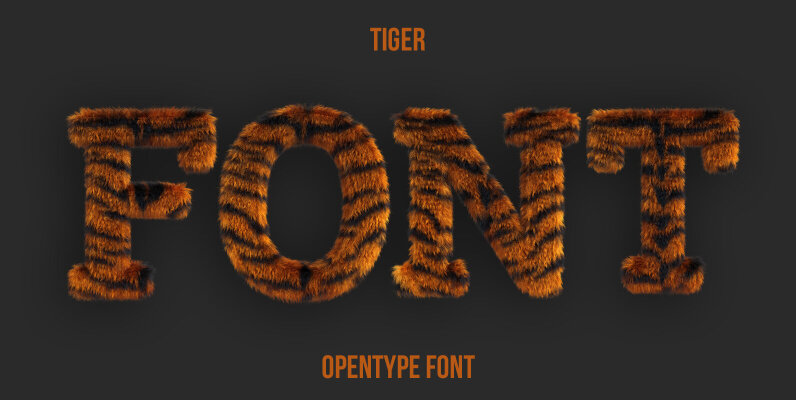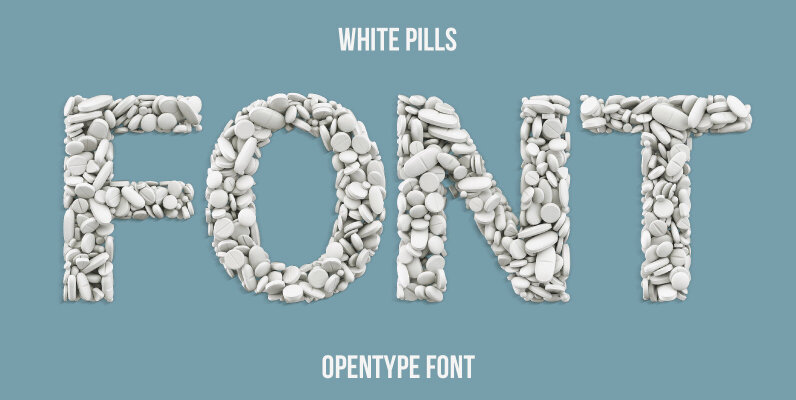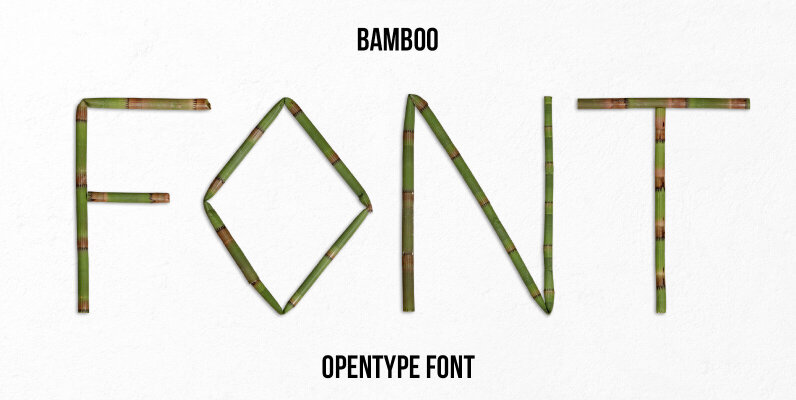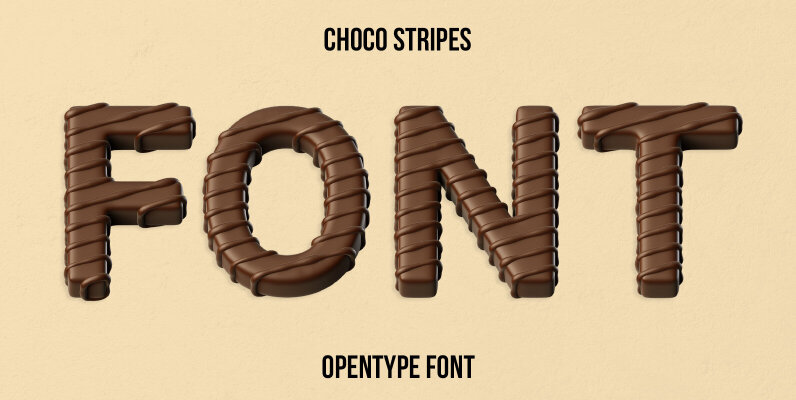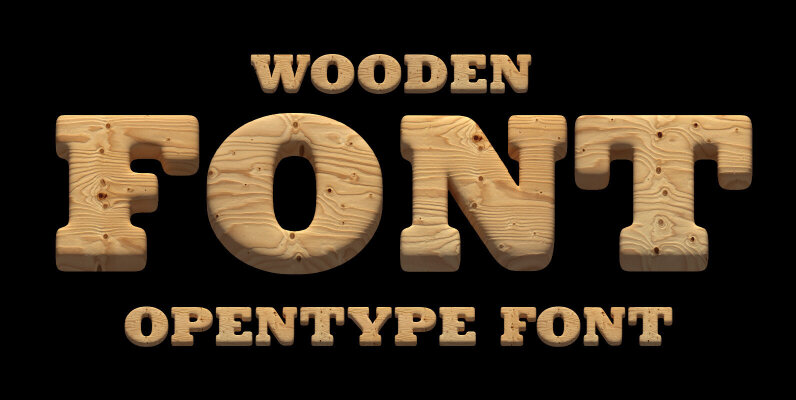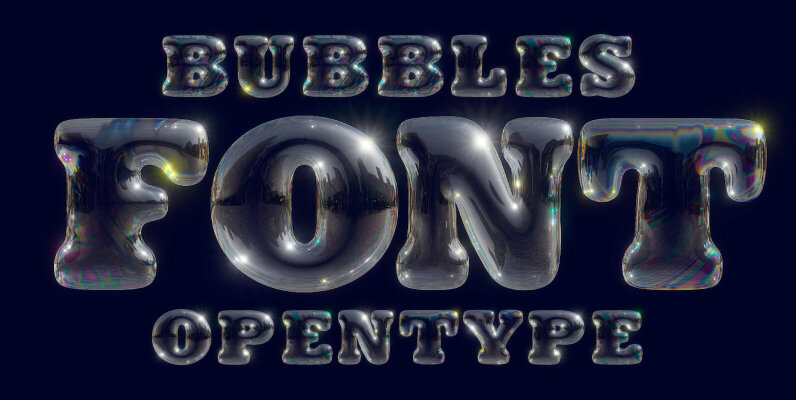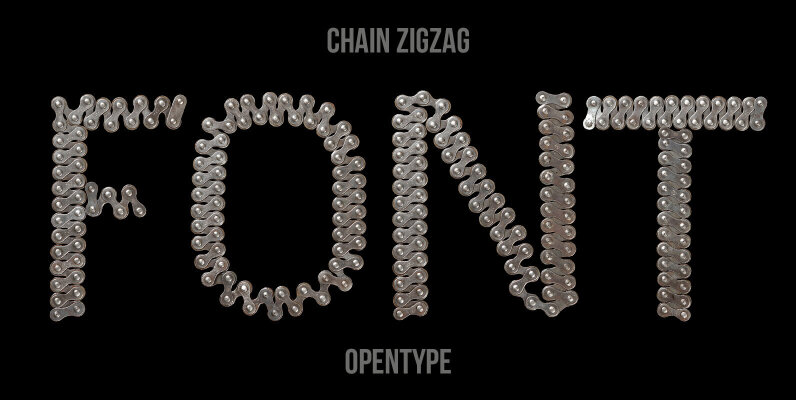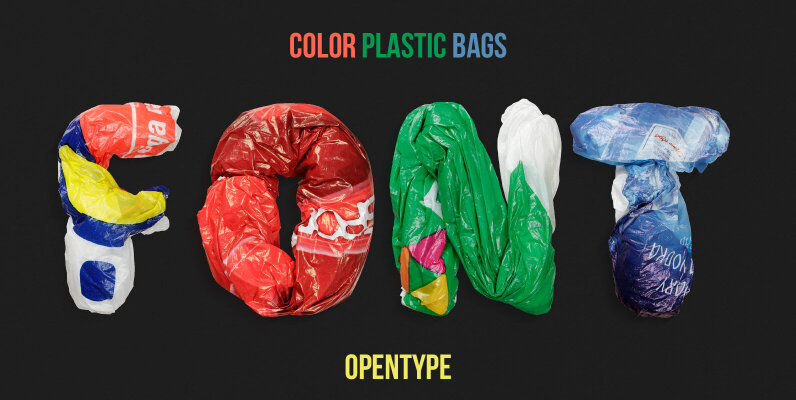
That’s why in 2008 we founded an Estonian-based company called Handmadefont. Back then neither the font industry was that well developed, nor the term ‘handmadefont’ itself was known. People used to consider fonts as keyable raster images. We suggested a new angle: fonts can be made of what-so-ever. Need a title for an editorial about Oscar nominees or an inscription for an outdoor poster of a spa-center? Here you go with a list of proper fonts for these precise purposes.
Handmadefont basically implemented a new approach to the understanding of fonts. We started with developing selfmade fonts from some funny everyday life objects and ended up with loads of new fonts.
We are not only brothers, but colleagues. We’ve been working in graphic design for more than 15 years. Very often we had to create unique fonts for different advertising campaigns, posters and TV commercials. The final result, after putting so much effort, would only last for a month or two. We felt so sorry that no one would ever see those works again. We decided to give them a new lease of life. That’s how the idea of Handmadefont came up.
At some point we started to grow internationally. We noticed that Handmadefont is popular amomgst advertising agencies and magazines, our fonts are used for commercial ads, packaging design, film titles and many more. Sometimes we cheerfully notice our fonts somewhere, let say, in Finland on an ice-cream waggonette or at a Latin American multimedia journal that focuses on fashion or covers a healthy lifestyle.
After all these years of diligent handmadefont work we managed to produce more than 1000 unique handcrafted fonts. From time to time it requires full body commitment. Like with Eggs Font that took at least 3 hours and 5 burnt fingers. But the work never stops. And we are so glad to spread handmadefont joy all around us and make it a never-ending story.